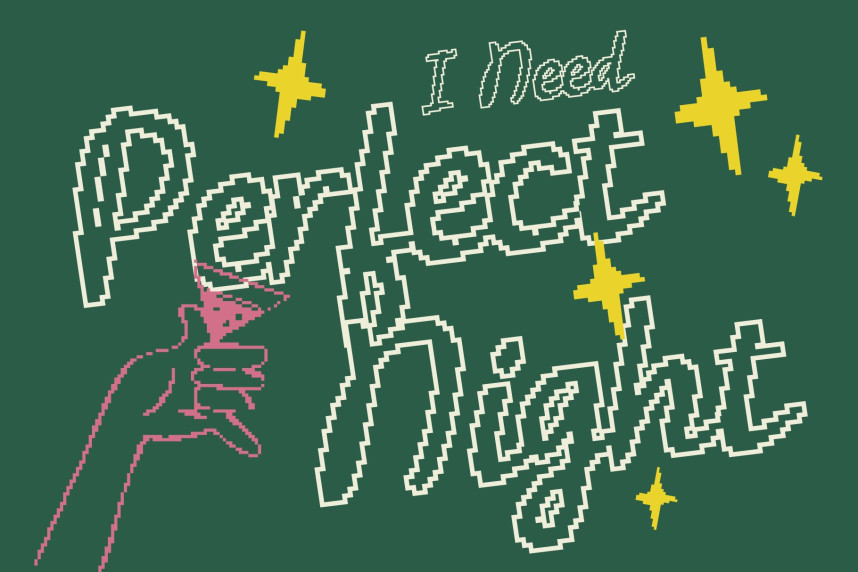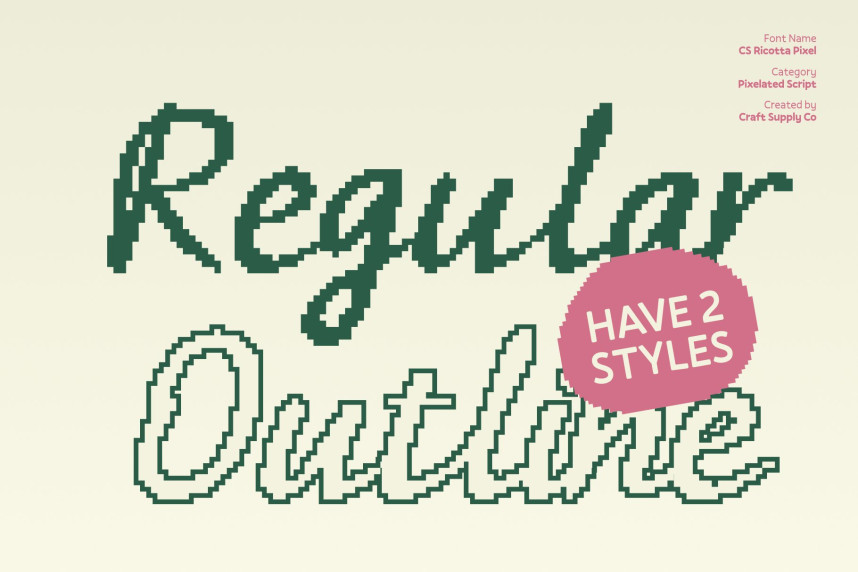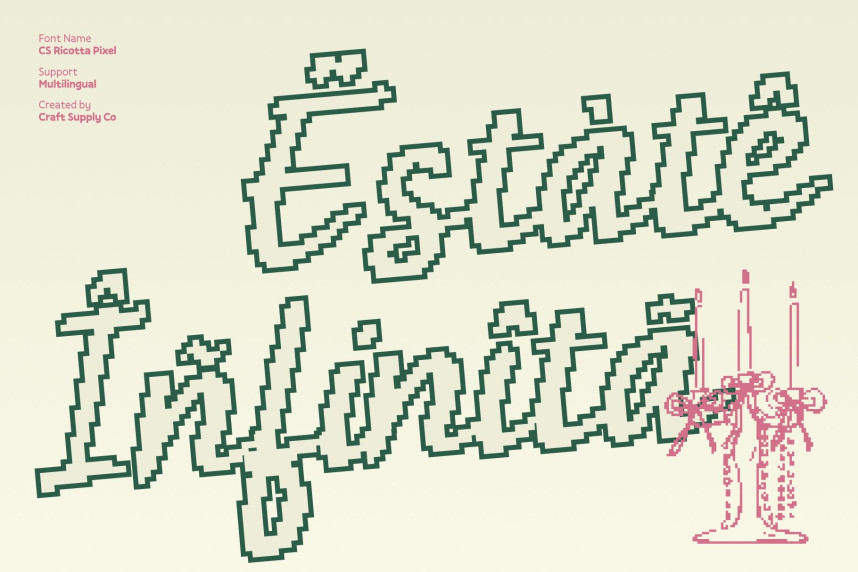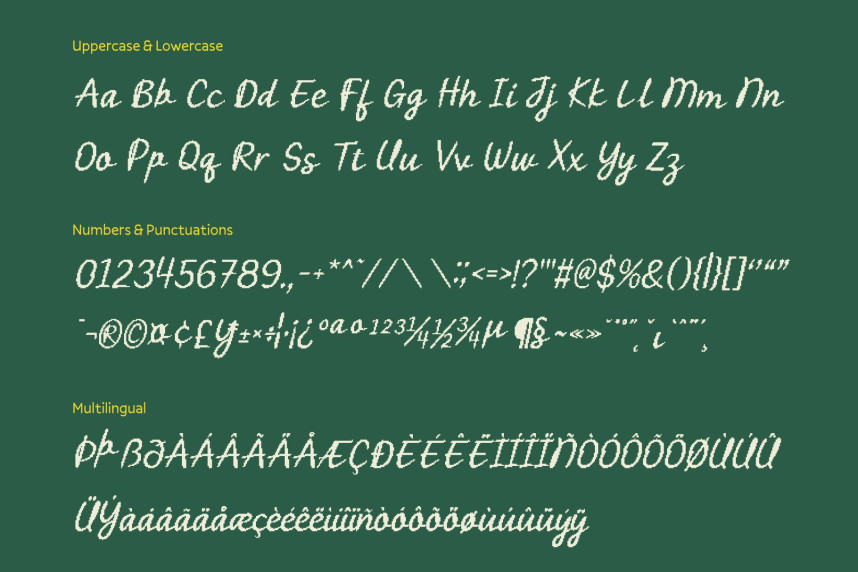
CS Ricotta Pixel Font
CS Ricotta Pixel Font – Handwritten Script Font with Romantic Curves Romantic Script with Pixel-Inspired Charm. This is a handwritten script font that blends flowing romance with a subtle pixel-digital character. Its graceful curves and hand-drawn strokes preserve the beauty of natural handwriting, while pixel-inspired construction gives it a unique retro-digital edge. The result is a script that feels soft, expressive, and visually distinctive in modern digital spaces.